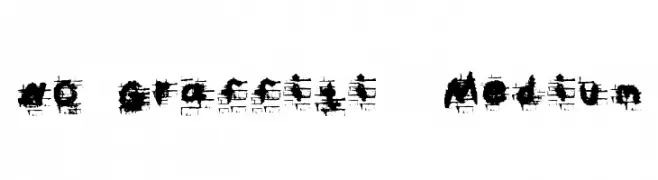
( Fonts by Cikareotype Studio )
A bold, graffiti-inspired font with dynamic curves and sharp angles.
( Fonts by Si Panji )
A bold, graffiti-style font with dynamic, angular strokes and an urban aesthetic.
( Fonts by Nirmana Visual )
A bold, rounded graffiti-style font with a playful and energetic appearance.
( Fonts by Nirmana Visual )
A bold, shadowed graffiti-style font with a dynamic and edgy appearance.
( Fonts by Moch Fitrah Hidayat )
A bold, graffiti-style font with dynamic, playful strokes.
( Fonts by Si Panji )
A bold, graffiti-inspired font with dynamic, angular strokes and a street art vibe.
( Fonts by Cikareotype Studio )
A bold, edgy graffiti-style font with sharp angles and dynamic lines.
( Fonts by Si Panji )
A bold, graffiti-style font with angular, dynamic letterforms.
( Fonts by Kong Font )
A bold, graffiti-inspired font with dynamic curves and sharp angles.
( Fonts by Bangkit Tri Setiadi )
A bold, graffiti-style font with outlined, three-dimensional characters.
( Fonts by Cikareotype Studio )
A bold, graffiti-style font with sharp, angular lines and dynamic flow.
( Fonts by Nirmana Visual )
A bold, graffiti-style font with dripping effects and shadowed, three-dimensional letters.
( Fonts by Nirmana Visual )
A bold, graffiti-inspired font with a playful, dripping effect.
( Fonts by Fitrah Type )
A playful, bubble-like font with a graffiti-inspired style.
( Fonts by Nirmana Visual )
A bold, playful graffiti-style font with rounded, balloon-like characters.
( Fonts by Kong Font )
A bold, graffiti-inspired font with dynamic and edgy characters.
( Fonts by Nirmana Visual )
A bold, graffiti-inspired font with sharp, angular edges and dynamic strokes.
( Fonts by Si Panji )
A bold, edgy graffiti-style font with sharp, angular shapes.
( Fonts by Si Panji )
A bold, graffiti-style font with dynamic, rounded shapes and high contrast.
( Fonts by Nirmana Visual )
A bold, graffiti-inspired font with thick, rounded characters and a playful, urban style.
( Fonts by Fitrah Type )
A bold, 3D graffiti-style font with strong extruded effects and high contrast.
( Fonts by Si Panji )
A bold, graffiti-style font with a dripping paint effect, perfect for urban-themed designs.
( Fonts by Cikareotype Studio )
A bold, bubble-like graffiti font with a playful and dynamic style.
( Fonts by Fitrah Type )
Bold graffiti-style display font with angular, energetic forms.
( Fonts by Fitrah Type )
Graffiti-style outlined font with energetic, hand-drawn shapes.
Bold graffiti-style font with energetic, hand-drawn forms.
( Fonts by or from www.graffitifonts.net )
A bold, playful graffiti-style font with thick, rounded characters.
( Fonts by or from www.graffitifonts.net )
A bold, graffiti-inspired font with angular, jagged letterforms.
( Fonts by or from www.graffitifonts.net )
A bold, graffiti-inspired font with a three-dimensional effect and sharp, angular characters.
( Fonts by or from www.graffitifonts.net )
A bold, graffiti-inspired font with dynamic, freeform strokes.
Graffiti-inspired decorative font with unique street art illustrations for each character.
A bold, graffiti-style font with angular, three-dimensional letterforms.